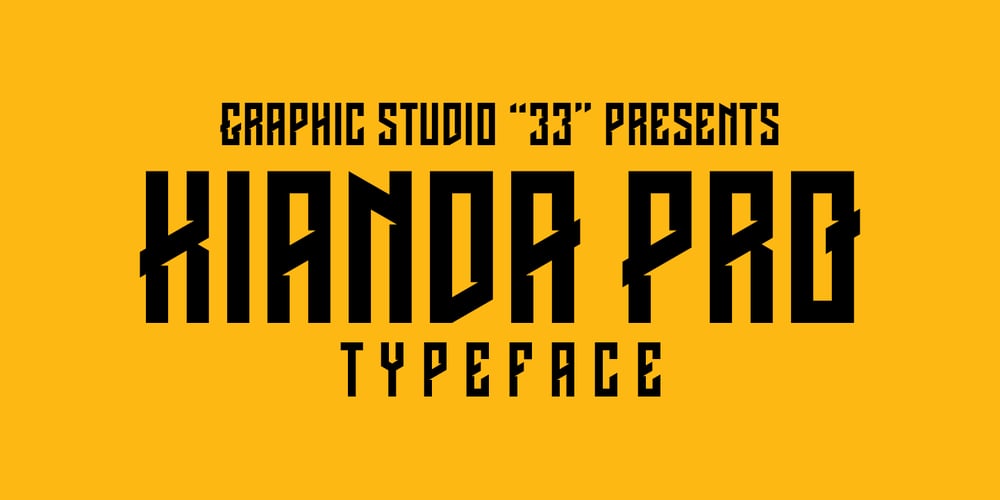
Kianda Pro
Kianda Pro Font Family was designed by Vladimir Platonov and published by QubaType. Kianda Pro contains 2 styles and family package options. Kianda typeface was created as a non-classic, sport logo typeface. Now it has two fonts with multilingual uppercase, numerals and punctuation. Almost every letter have 3-4 alternates, which allows you to feature stylish text for your logo. Also this typeface works good with short slogans, packaging and more.